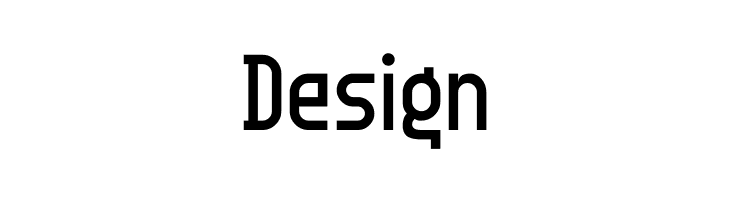
dustinthewood Font
- Font: dustinthewood
( Fonts by dartcanada.tripod.com - Darren Rigby )
A modern, geometric sans-serif font with uniform stroke width and clear readability.